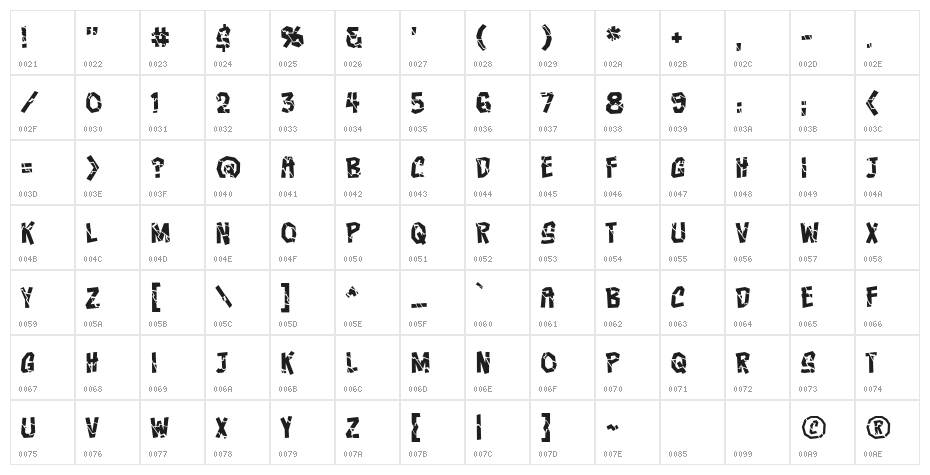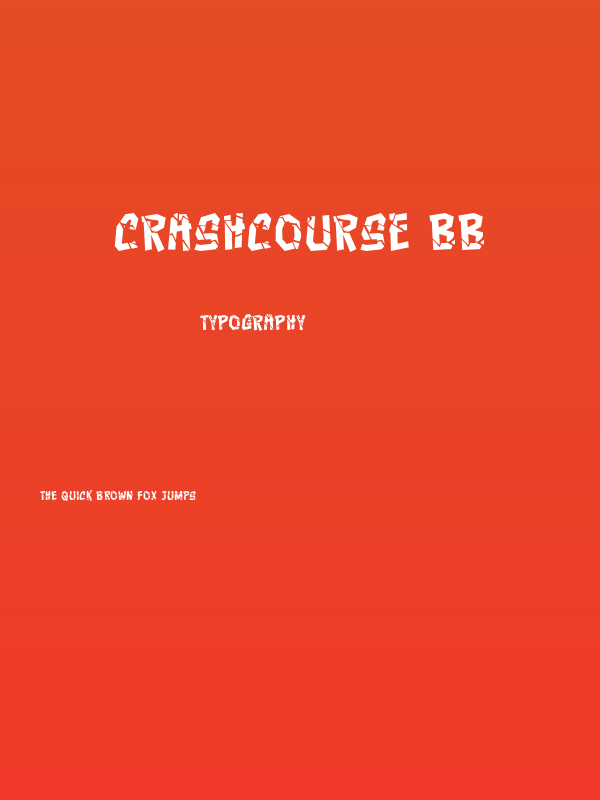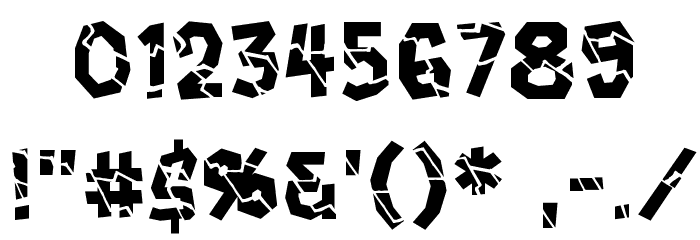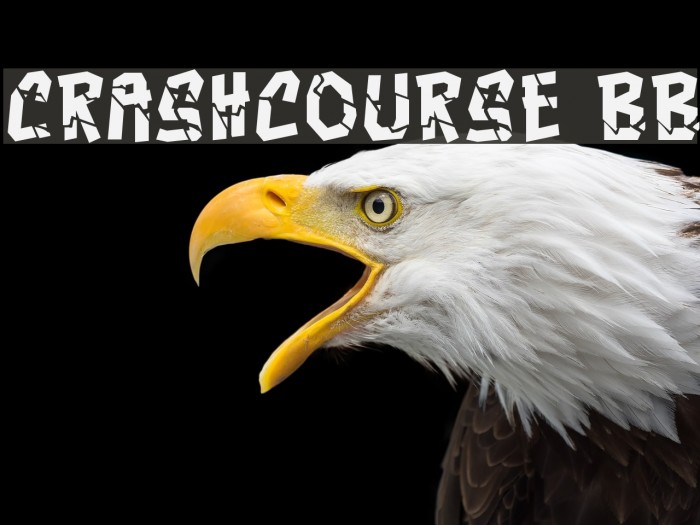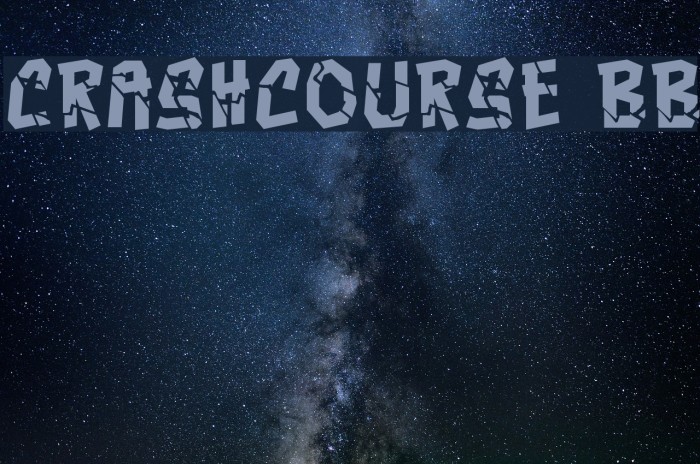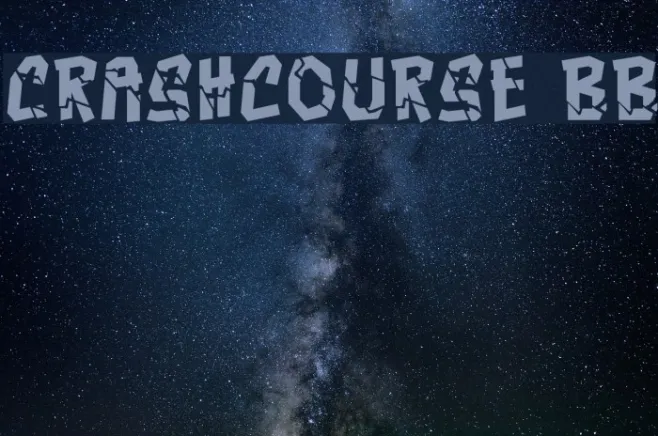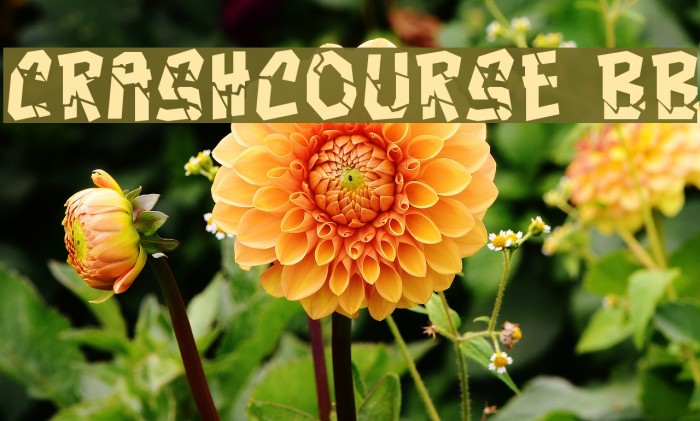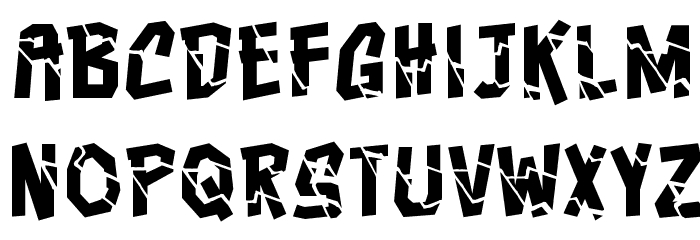
Crashcourse BB Font
Crashcourse BB Description
This font features a bold, fragmented design that gives the impression of shattered glass or broken structures. Each character is composed of angular, irregular shapes that create a dynamic and edgy appearance. The uppercase and lowercase letters maintain a consistent style, with sharp edges and a sense of movement. Numbers and special characters follow the same design principles, ensuring uniformity across all glyphs. The font's unique style makes it stand out, ideal for projects that require a strong visual impact.
| Overall Style | Modern, Edgy |
| Proposed Projects | Ideal for album covers, posters, video game titles, and edgy branding projects. |